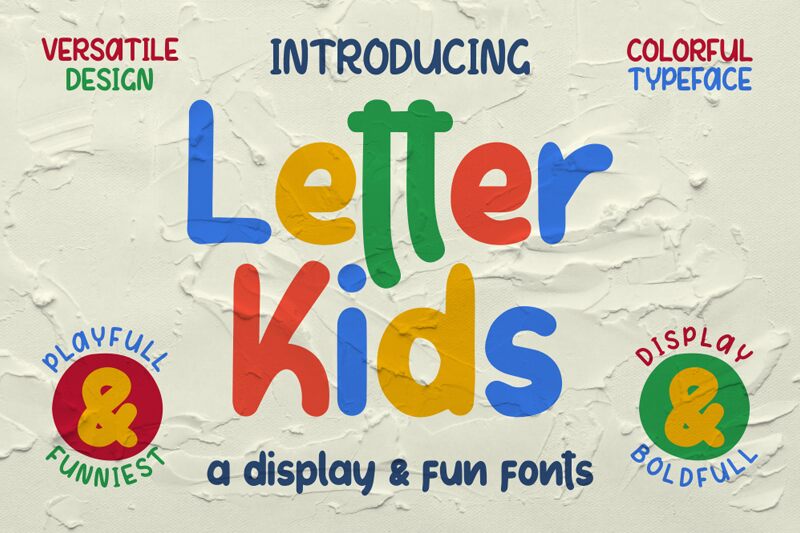
The "Letter Kids" font, designed by Sarah Robbaniyyah of Good Java Studio, exudes a delightful, whimsical charm. With its bold, cartoon-inspired strokes and playful aesthetic, this display font captivates the eye and evokes a sense of youthful energy. The distinct, rounded letterforms and pronounced variations in stroke thickness create a visually engaging and approachable typeface that can effortlessly lend itself to a variety of creative projects.
This font's vibrant personality makes it an excellent choice for children's books, educational materials, and any design work seeking to convey a lighthearted, friendly tone. Its bold presence and strong visual impact also lend themselves well to branding, packaging, and promotional applications that aim to capture the attention of a younger audience.
Letter Kids